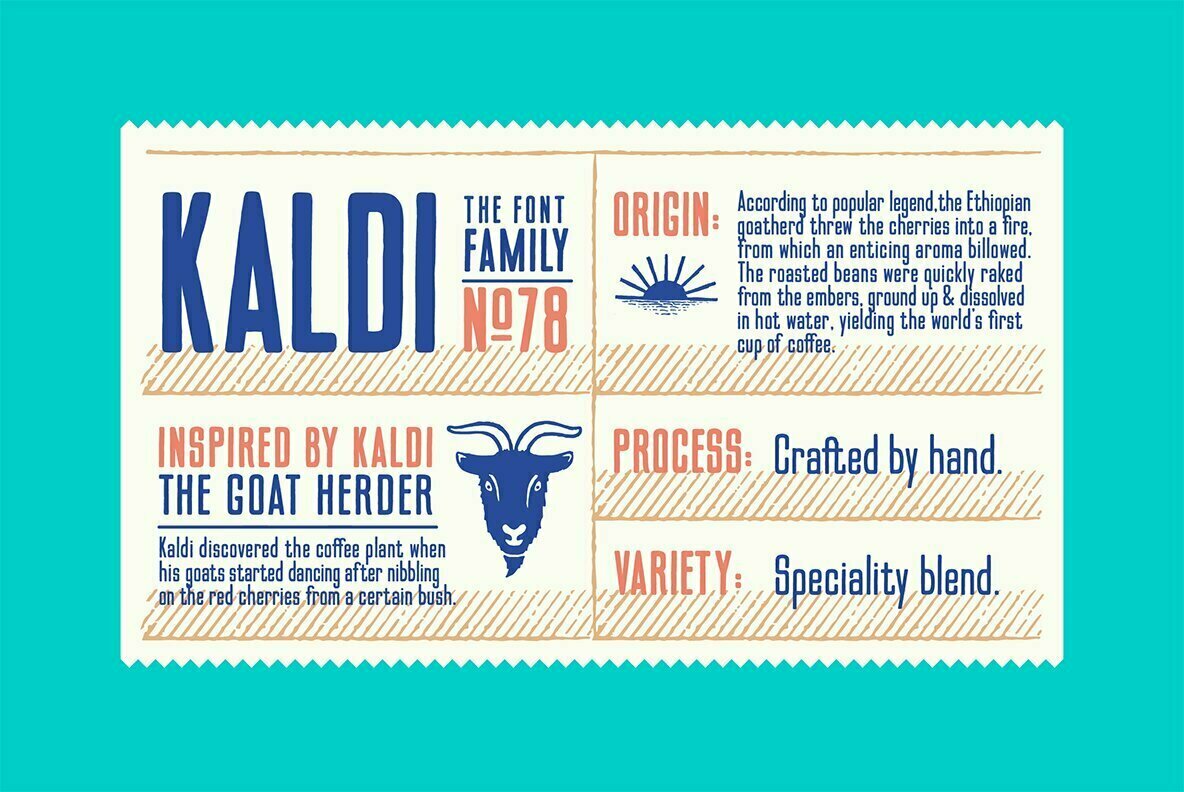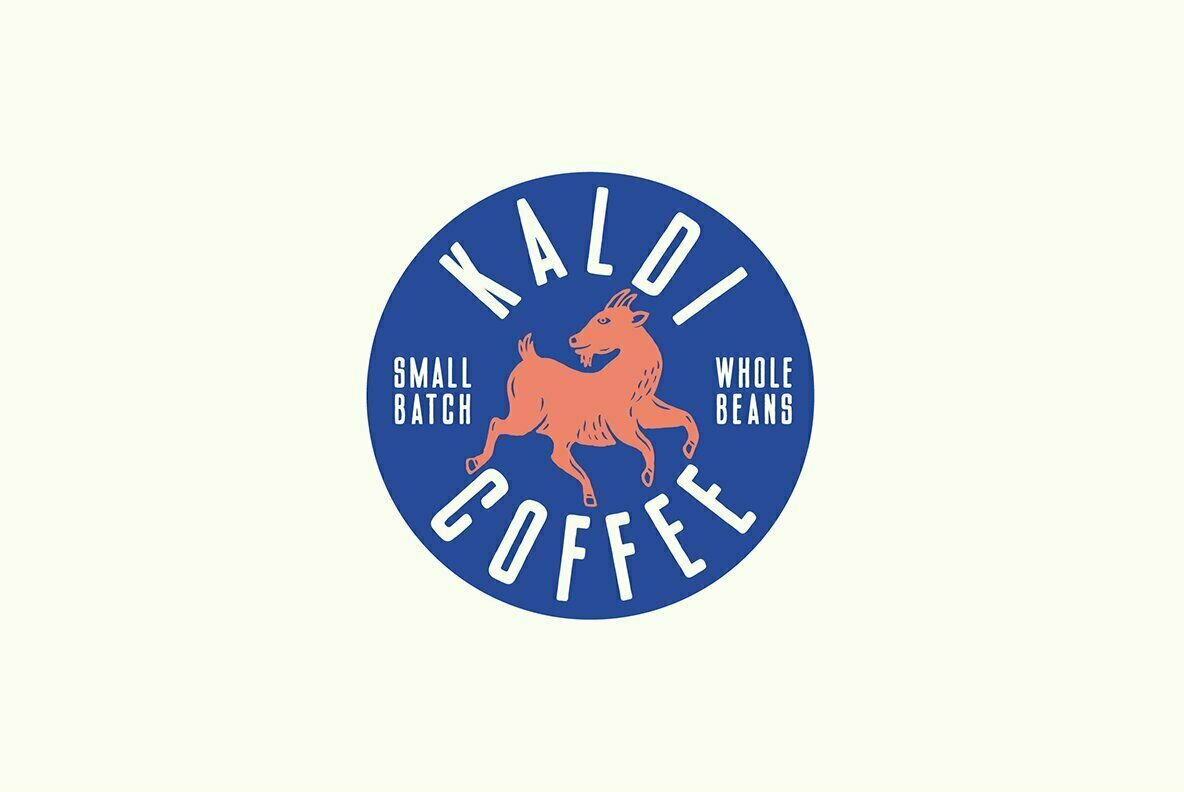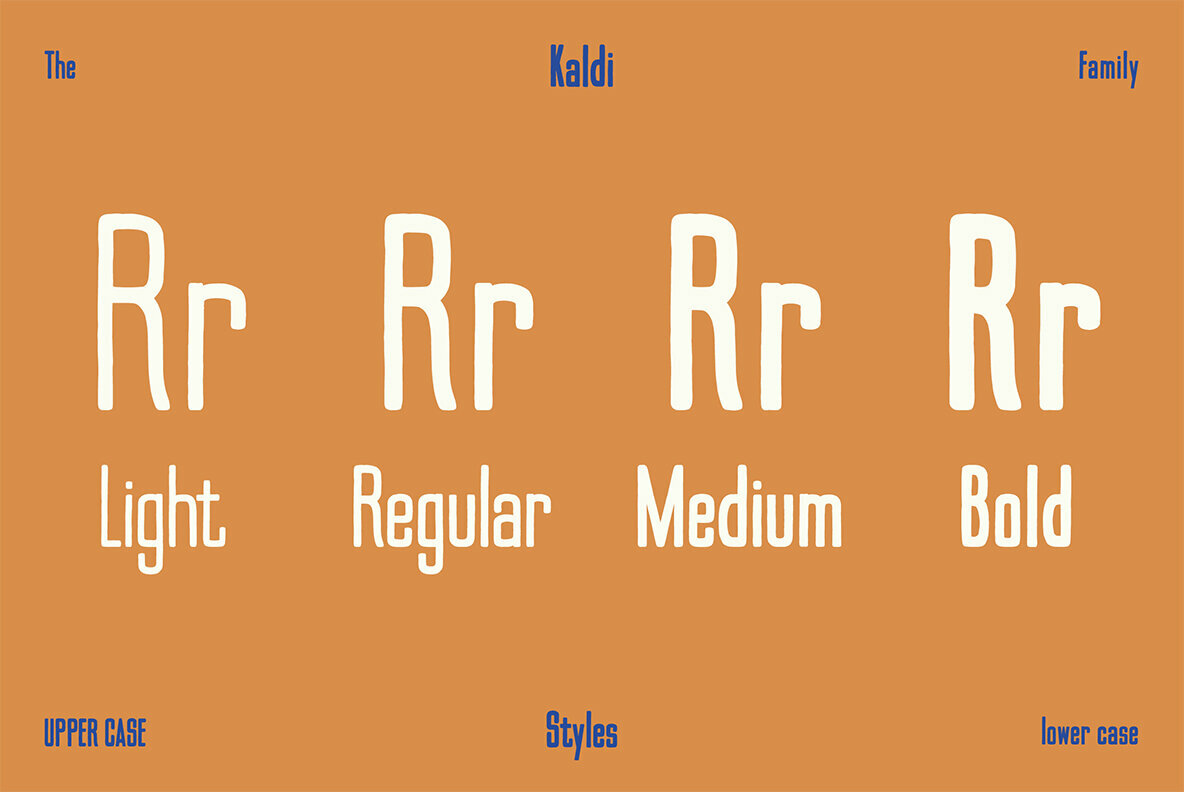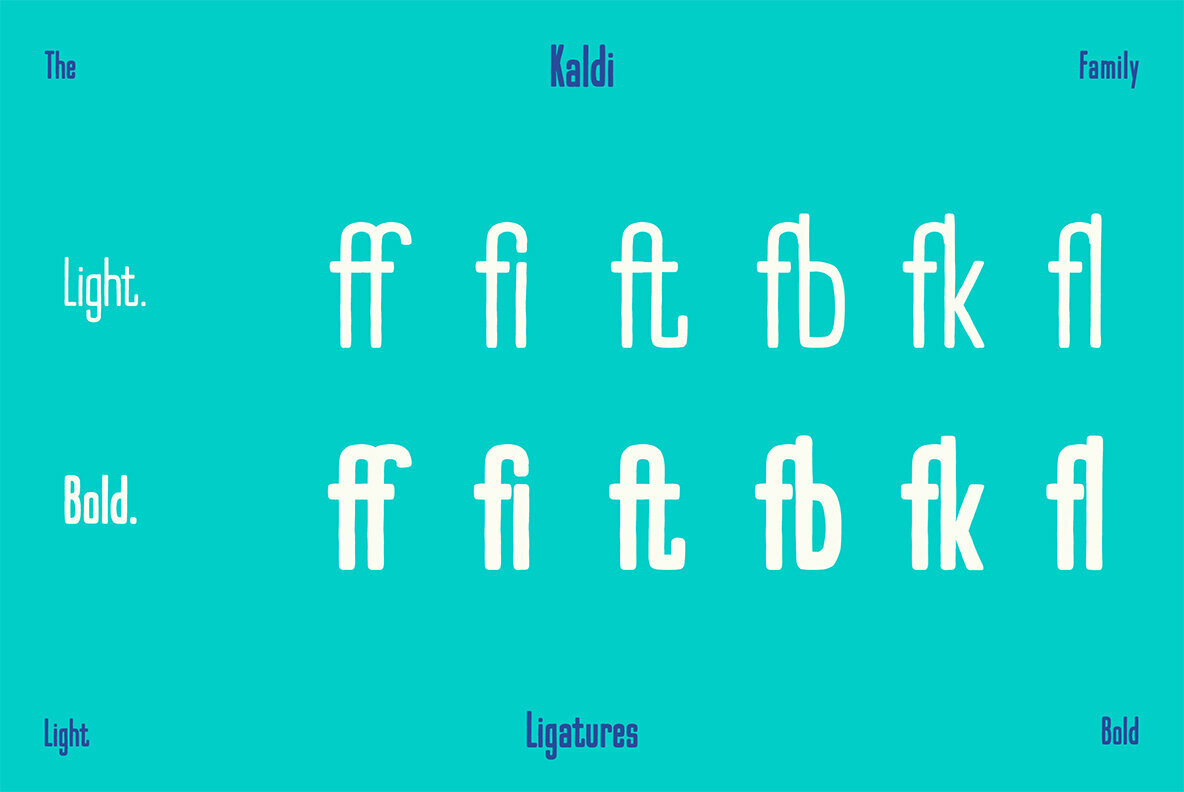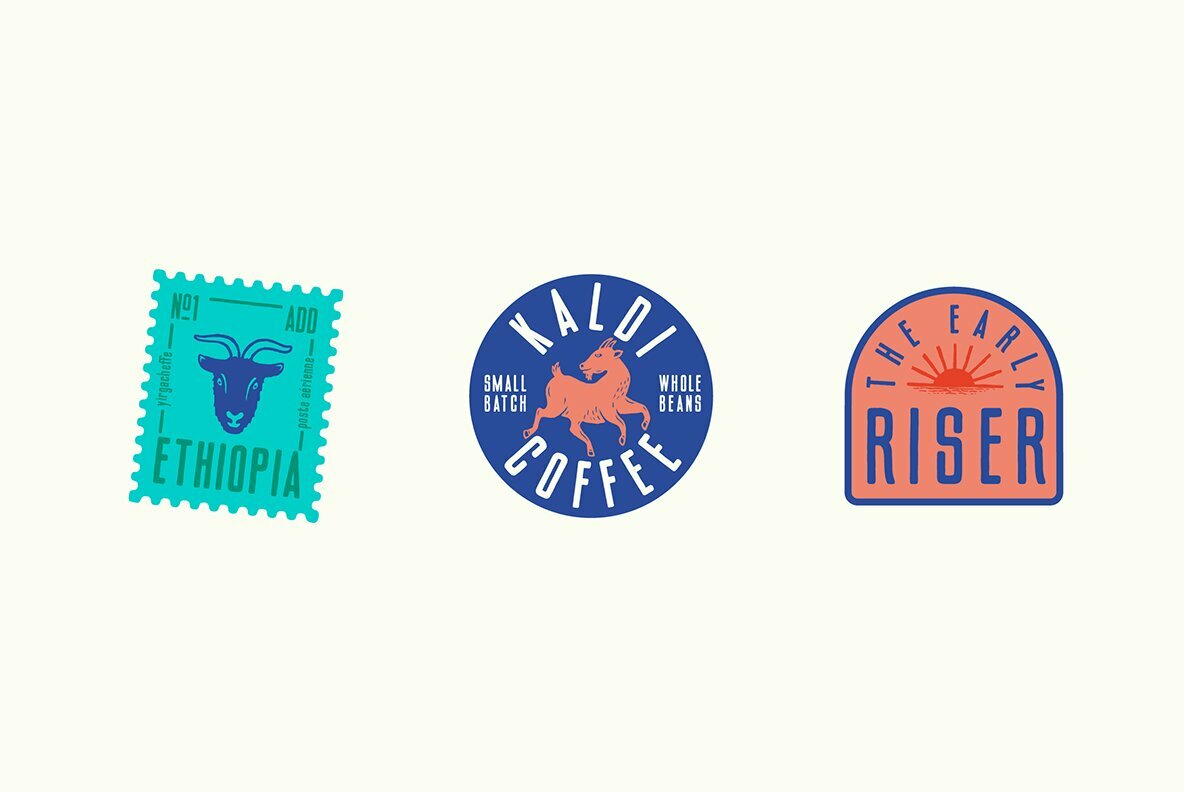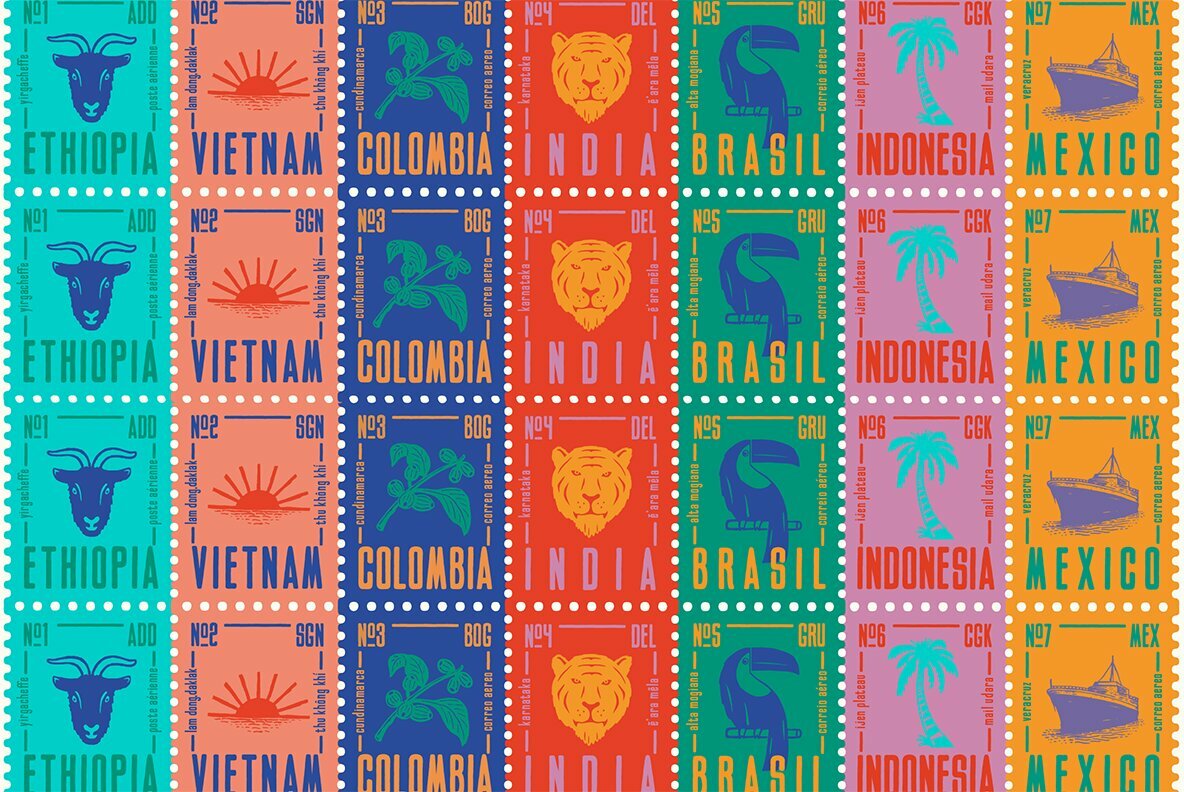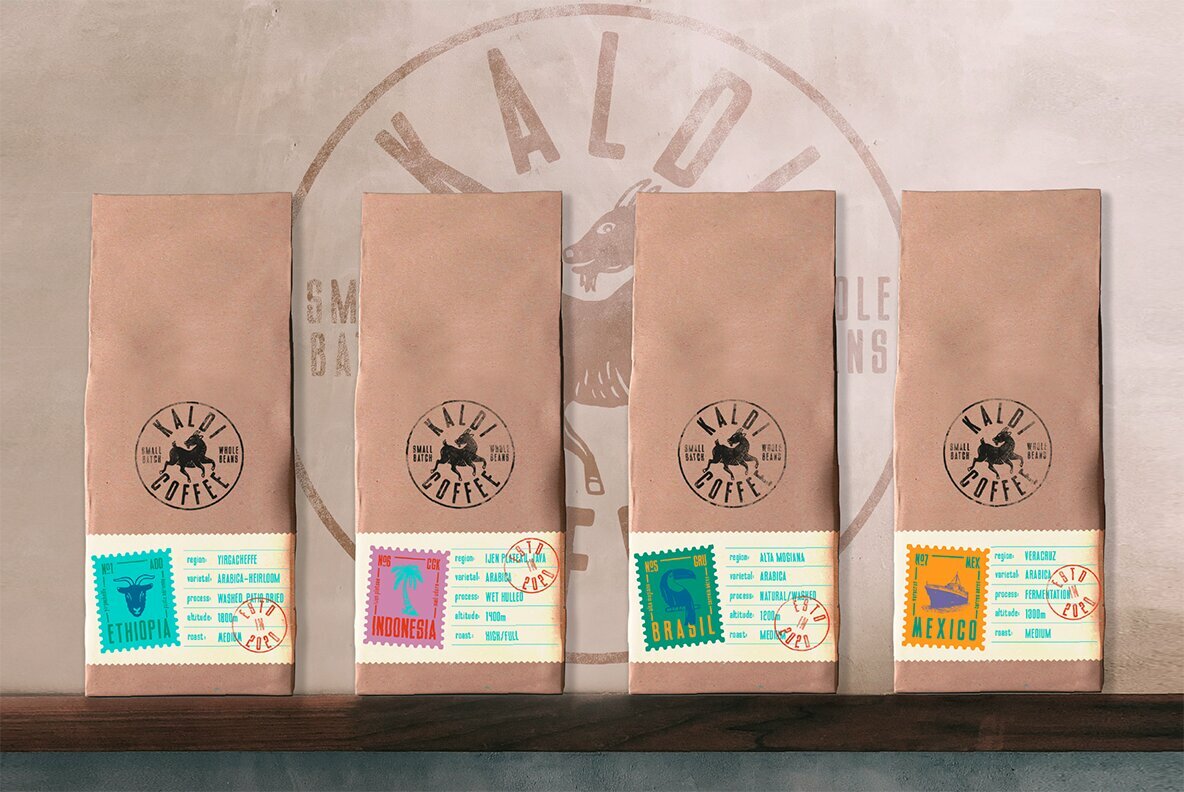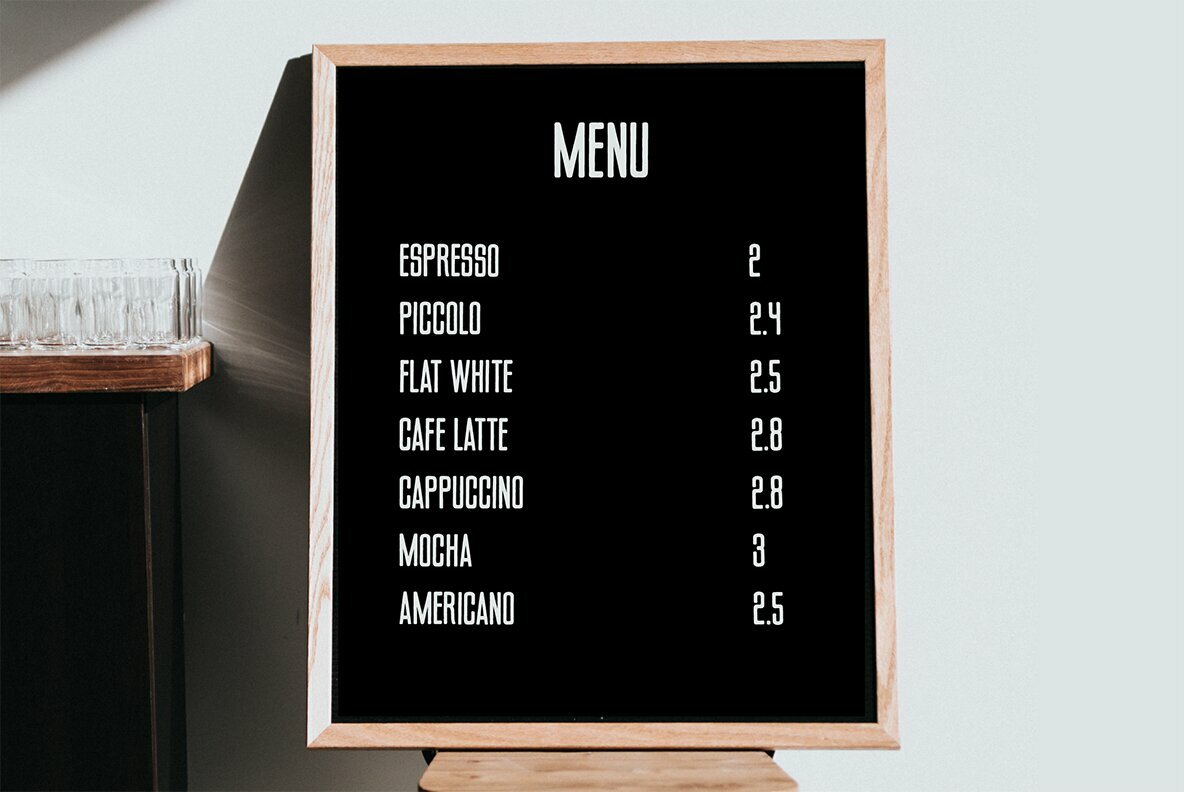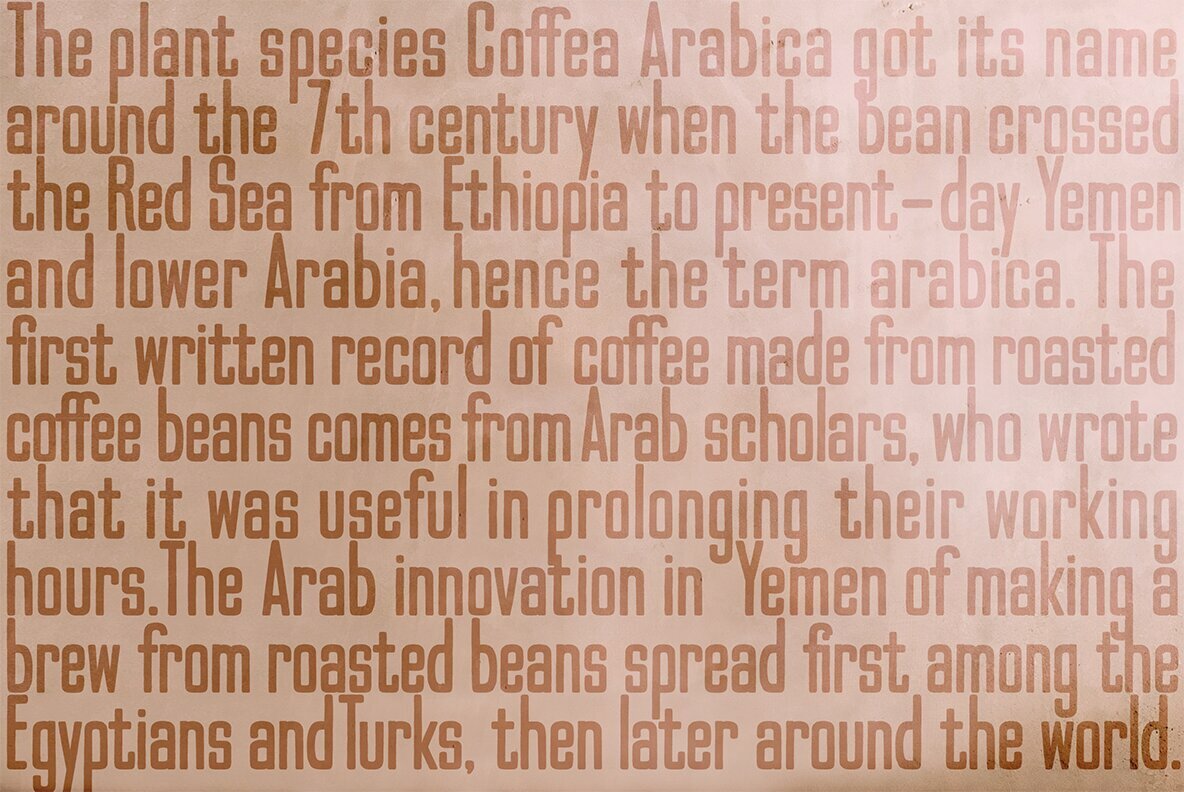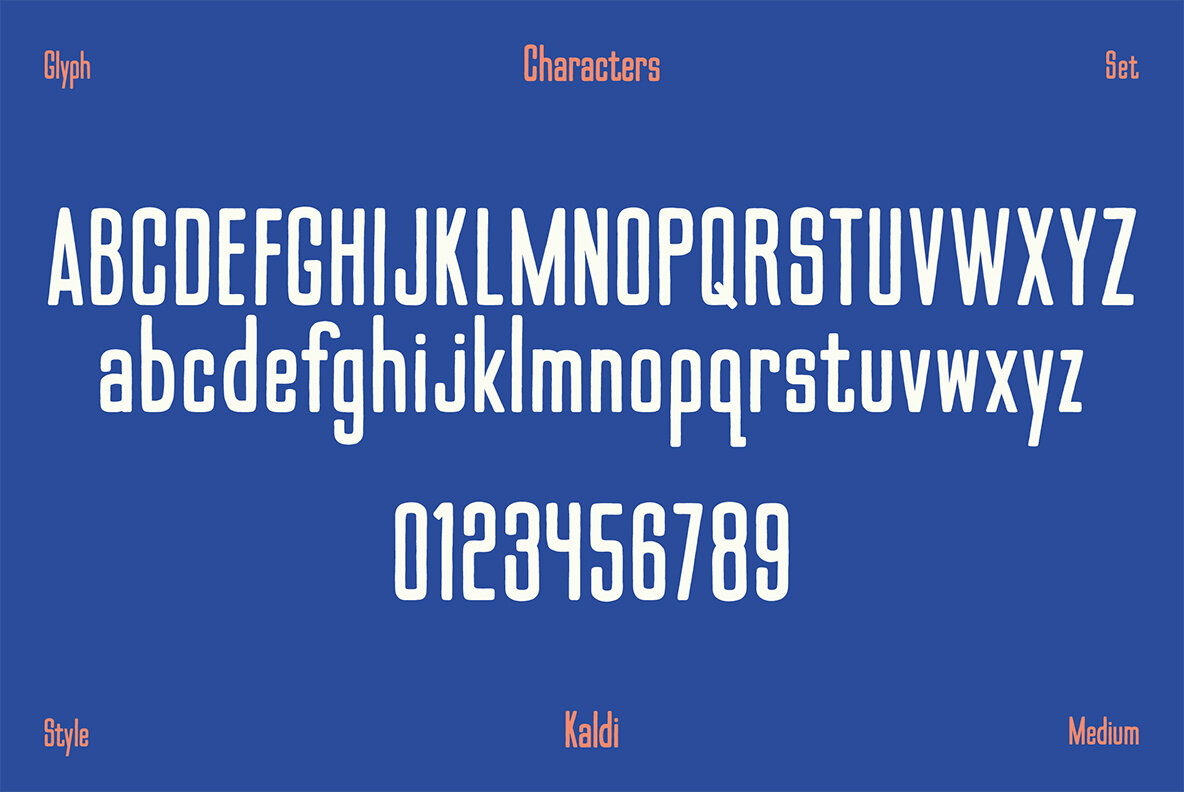
Kaldi Font
Kaldi Light
Kaldi Regular
Kaldi Medium
Kaldi Bold
Kaldi is a tall condensed typeface that has gone through a natural process of craft and refinement to create a specialty blend. This font family is inspired by the legend of Kaldi – the goat herder who discovered the coffee plant after his goats started dancing after eating coffee cherries.
I'm a packaging and type designer from England. I have spent 4 years working in the packaging industry, working on various alcohol brands.During my time as a packaging designer I developed a passion for the detail and crafting of typography; so I have delved into the world of creating fonts.